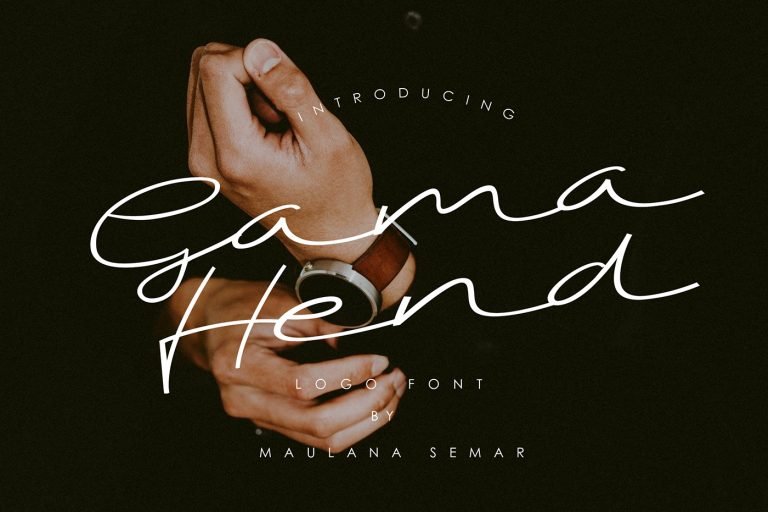
Gama Hend Script Font
Hi Ladies and Gentleman ! Continue to be a great free font package, Introducing Gama Hend Font! Gama Hend designed and shared by Maulana Semar. Free Gama Hend Logo Signature font is a beautiful font contains uppercase and lowercase letters and numbers. It’s perfectly suited to signature, stationery, logo, branding, poster, social media, ad banner, wedding invitation, greeting card, magazine or book cover, website, packaging design etc.